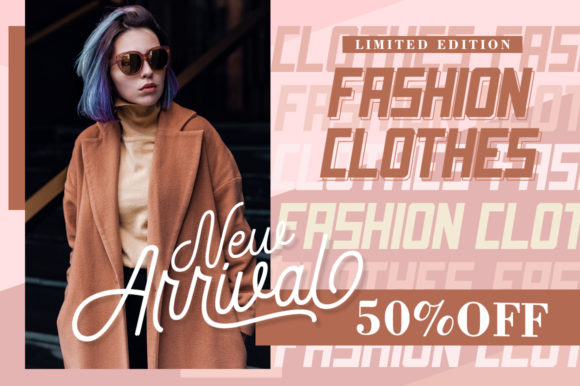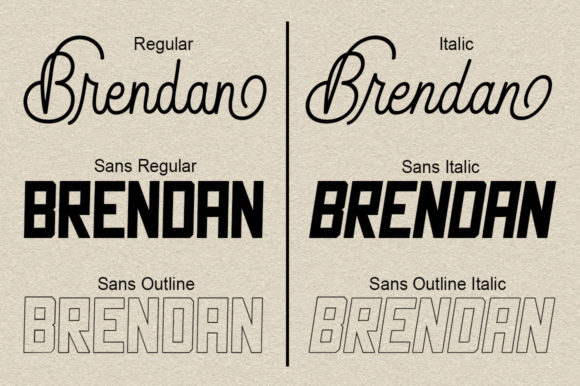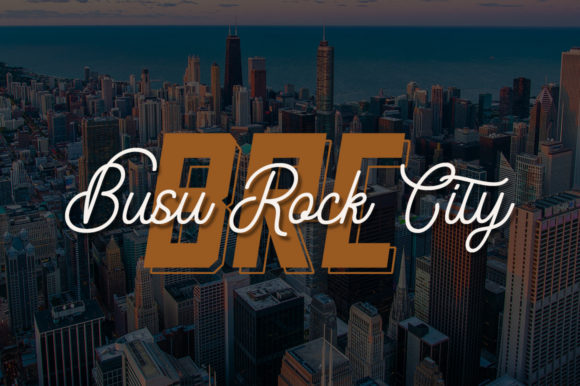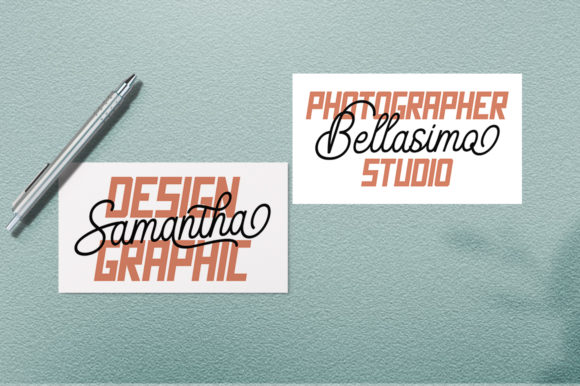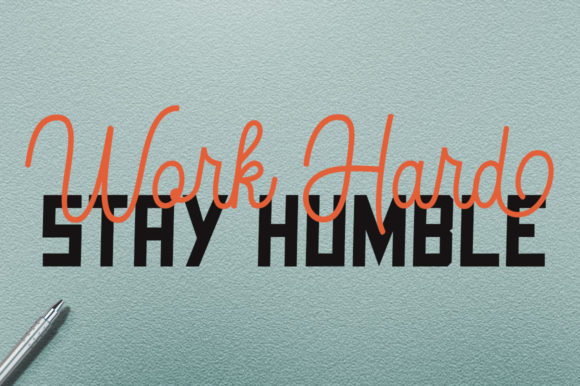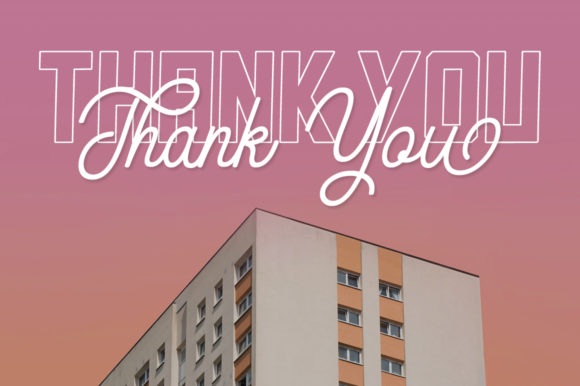
Brendan Duo Font
About Brendan Duo Font
Brendan Duo is a beautiful and versatile duo font, created to easily fit a wide variety of design ideas. This font is PUA encoded which means you can access all of the glyphs and swashes with ease! It features a varying baseline, smooth lines, gorgeous glyphs and stunning alternates.